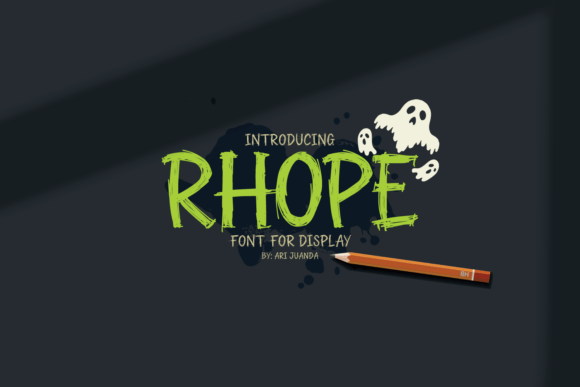
Embark on a journey of exquisite typography with Rhope Font, a script font family that captivates with its ethereal beauty and effortless elegance. Dive into a world of creativity, where words dance and stories come alive.
Rhope, a masterpiece crafted by Line Creative, is an original loosely handwritten skeksa font that exudes a balanced appearance, ensuring that your designs stand out with a touch of sophistication. Let your imagination soar as you explore the endless possibilities that await with Rhope Font.
With Rhope, you'll discover a font that effortlessly complements a wide range of projects, demanding attention and leaving a lasting impression. Whether you're designing breathtaking logos, enchanting invitations, or simply adding a personal touch to your digital creations, Rhope is your perfect companion.
Elevate your designs with Rhope's natural, easy-to-read style, ensuring that your message is conveyed with clarity and impact. Let your words flow effortlessly across the page, captivating your audience with their grace and fluidity.
Rhope Font is more than just a font; it's an expression of your creativity, a testament to your discerning taste. Embrace the allure of Rhope and embark on a typographic adventure that will leave you spellbound.
Don't settle for ordinary fonts that blend into the background. Choose Rhope Font, a symphony of style and substance, and let your designs shine with unparalleled brilliance. Dive into the world of Rhope and experience the transformative power of typography.